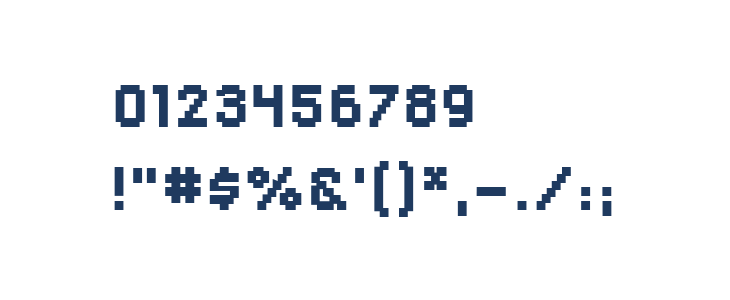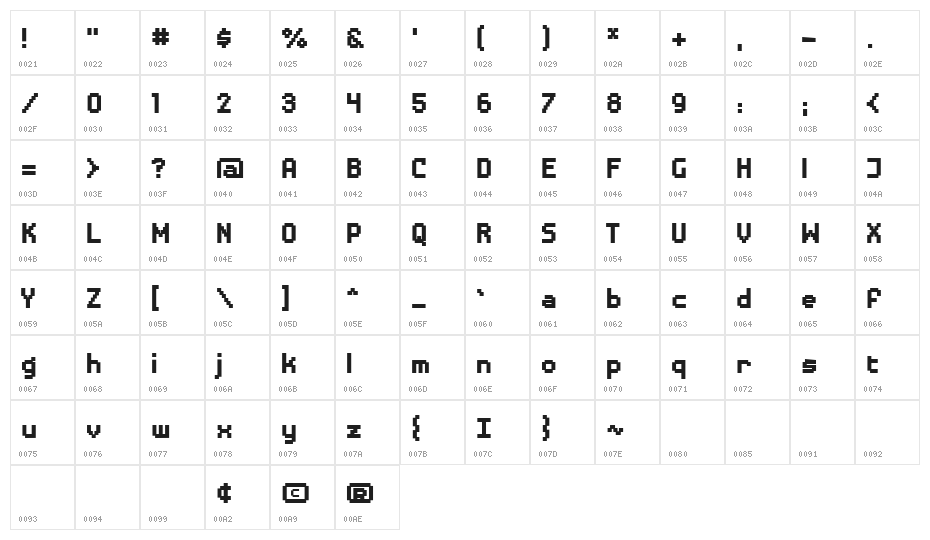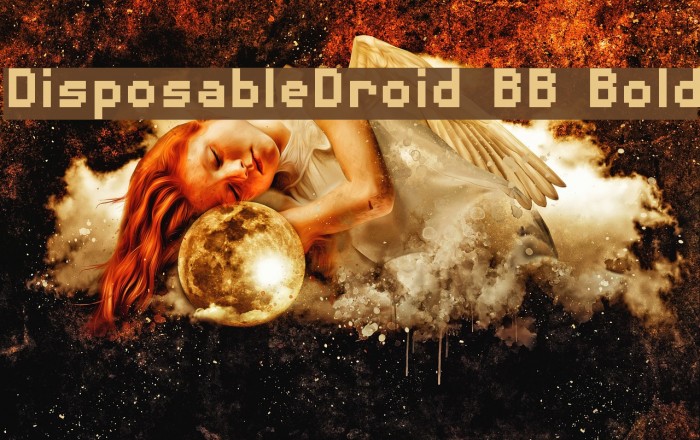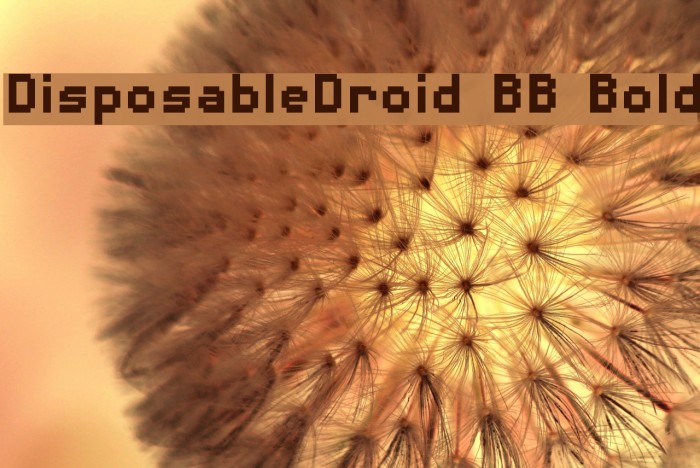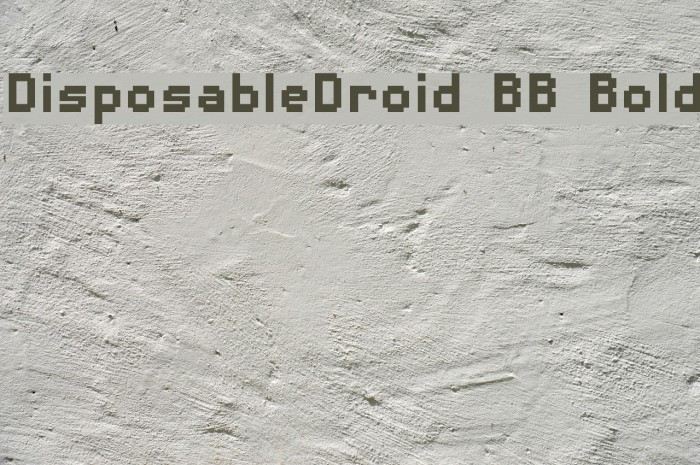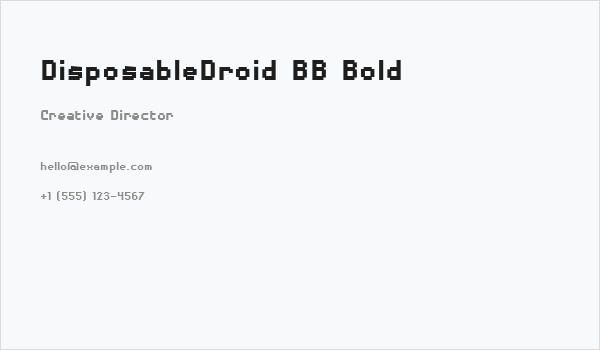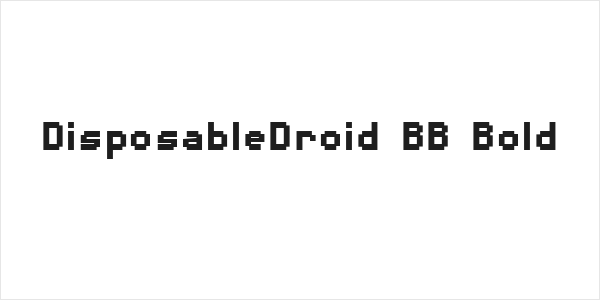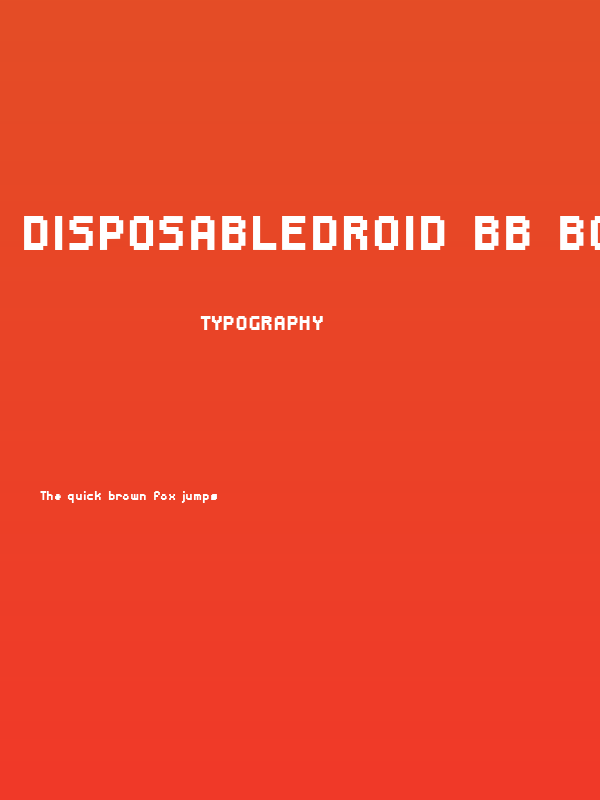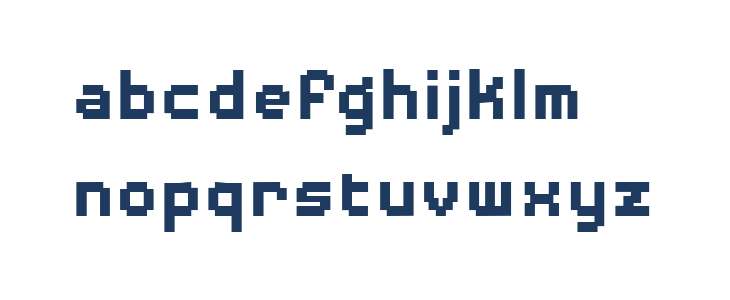
DisposableDroid BB Bold Font
DisposableDroid BB Bold Description
This font features a bold, pixelated style reminiscent of classic 8-bit video games. Each character is constructed with a blocky, grid-like appearance, giving it a retro digital feel. The uppercase and lowercase letters maintain a consistent height, enhancing the uniformity and readability of the text. Numbers and special characters follow the same pixelated design, ensuring a cohesive look across all elements. The font's distinct style makes it ideal for projects that aim to evoke nostalgia or a tech-inspired aesthetic.
| Overall Style | Retro, Digital |
| Proposed Projects | Ideal for video game graphics, retro-themed designs, digital art, and tech-related branding. |